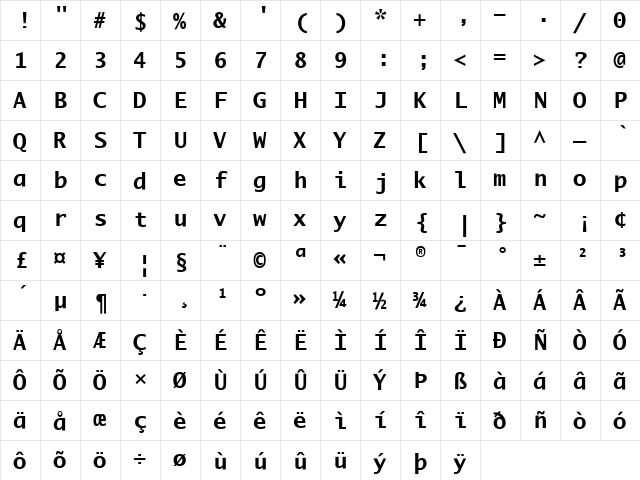
LucidaMonoEF Regular
Design Context for LucidaMonoEF Typeface
LucidaMonoEF brings the precise, column-aligned rhythm of monospaced typography to designs that value technical clarity and systematic order.
Pro Tip: Pair LucidaMonoEF with a proportional sans for UI contexts where code-style labels and regular body copy need to coexist.